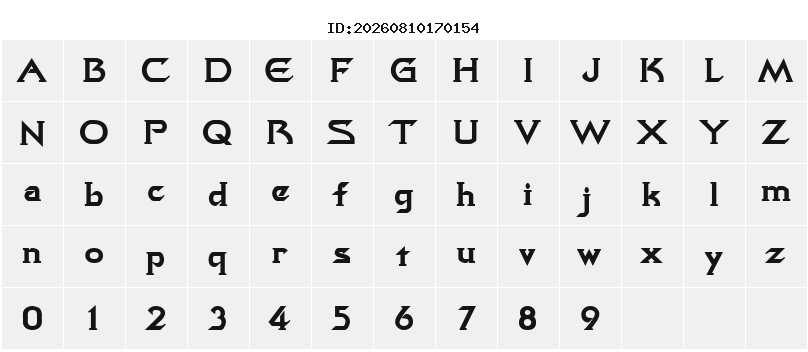
Quasar Preview
• Font Name: Quasar
• Font ID: SWFTE:Quasar Bold
• Full Font Name: Quasar Bold
• Version: Rev. 003.000
• PostScript Name: QuasarBoldSWFTE
• Character Count: 122
About Quasar.ttf
Quasar.ttf is a modern, elegant sans-serif font designed for ultimate readability and visual harmony. Perfect for branding, headlines, web design, and print materials.